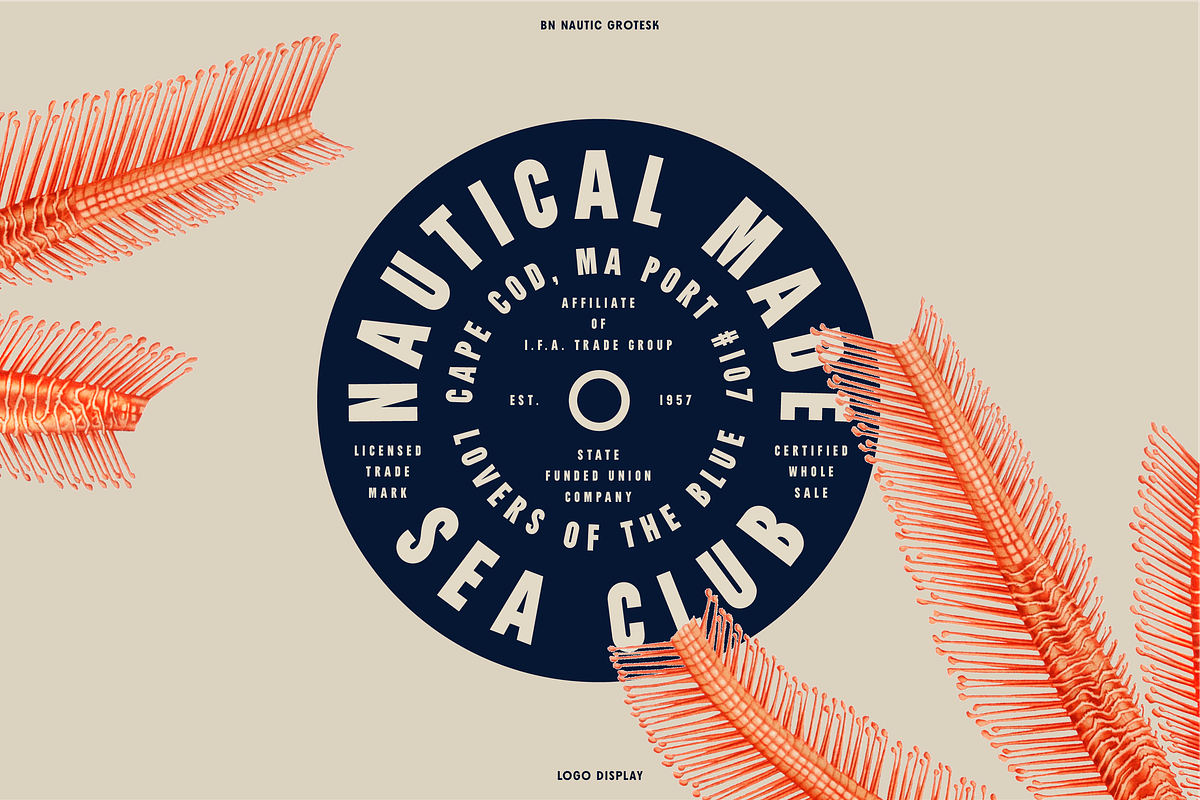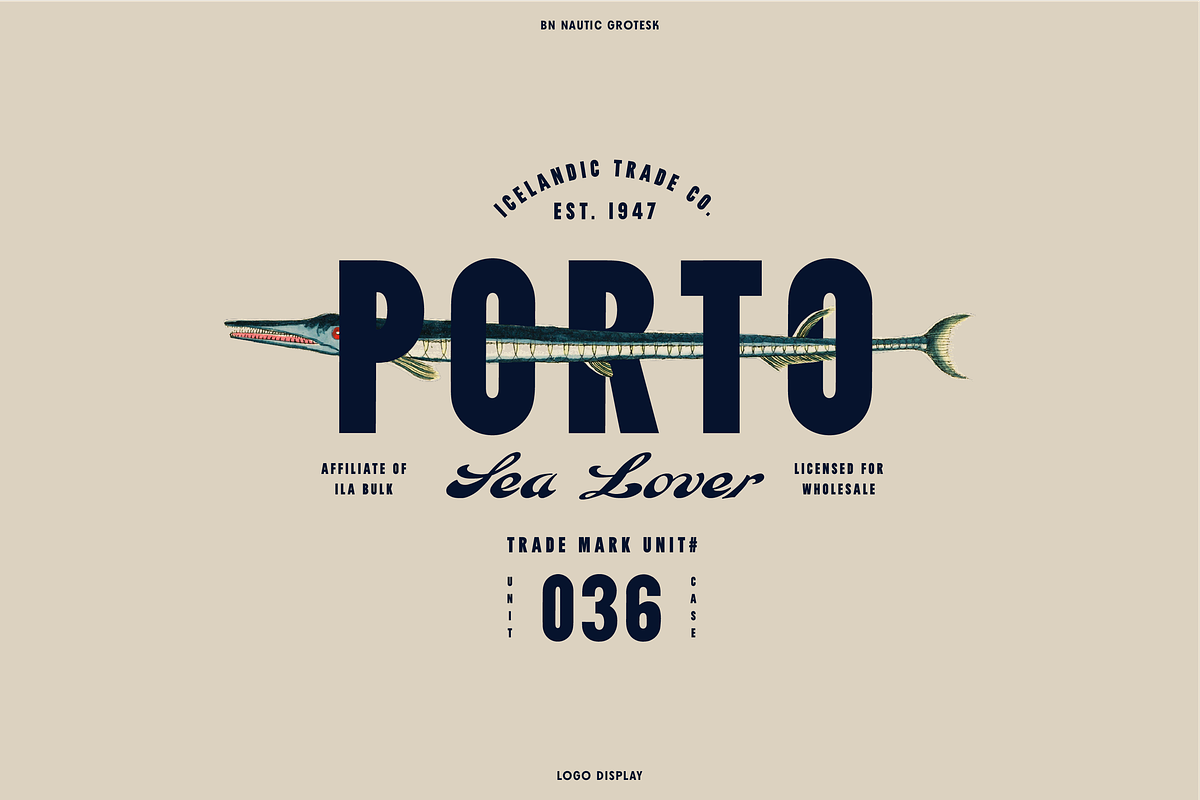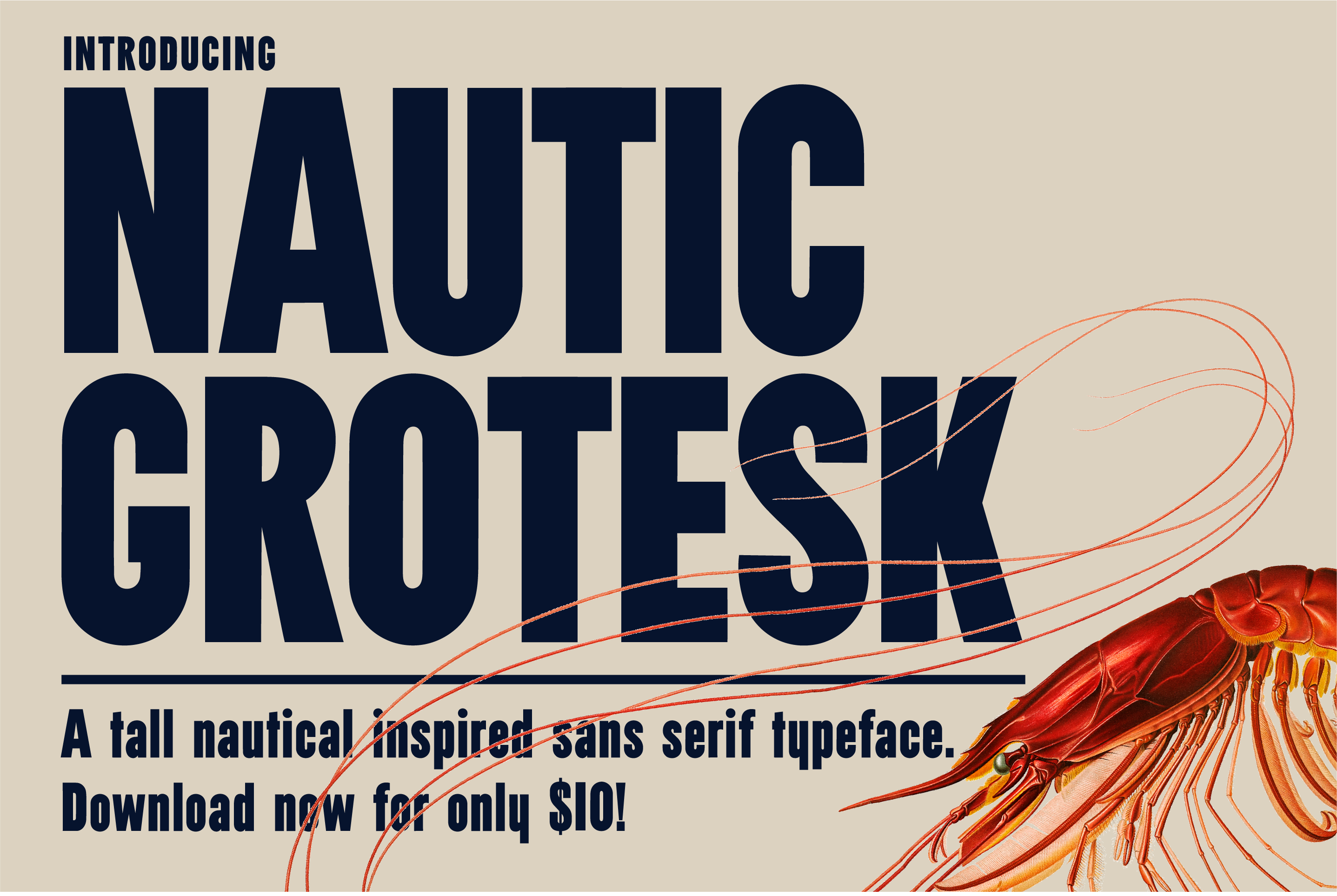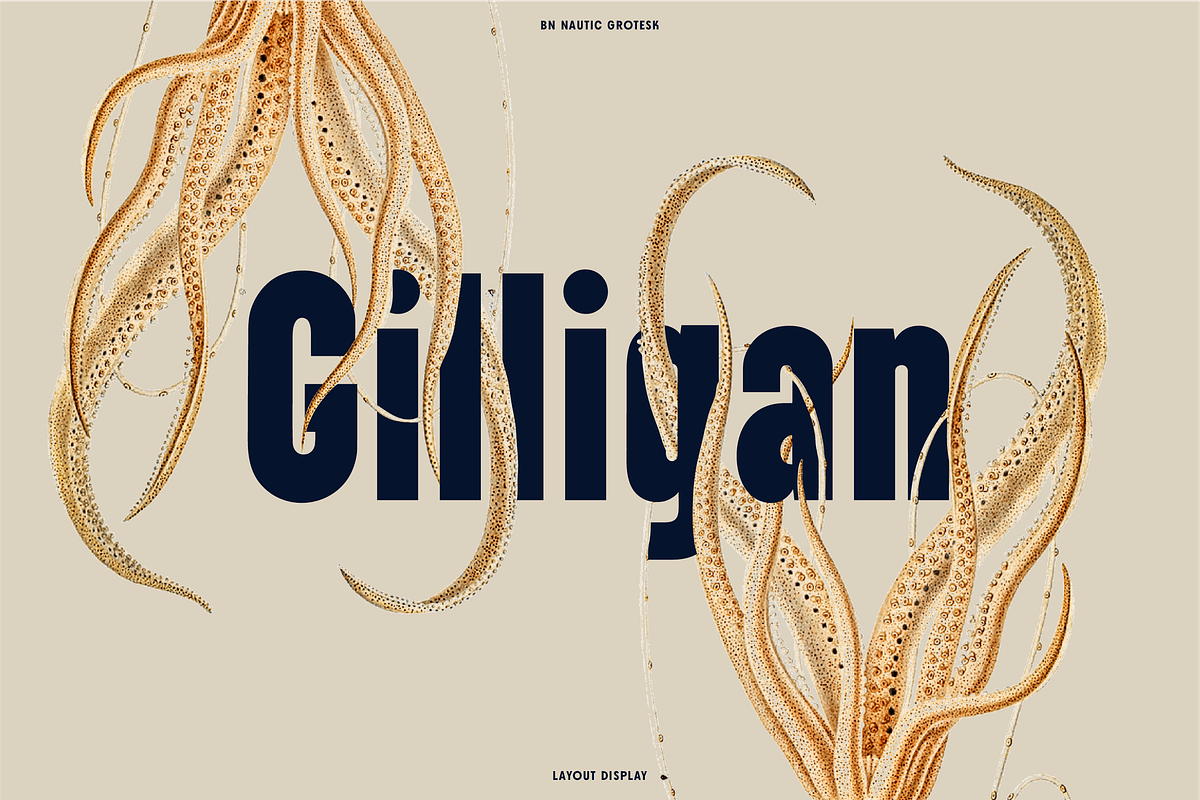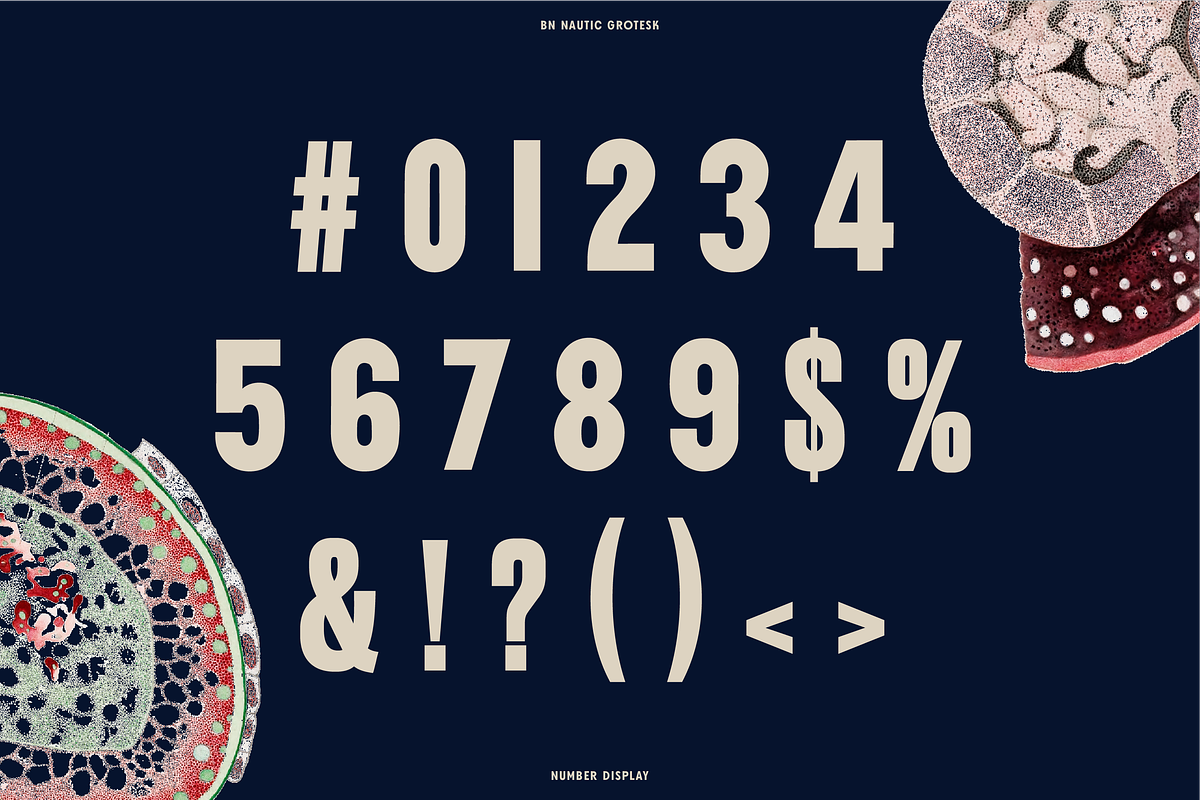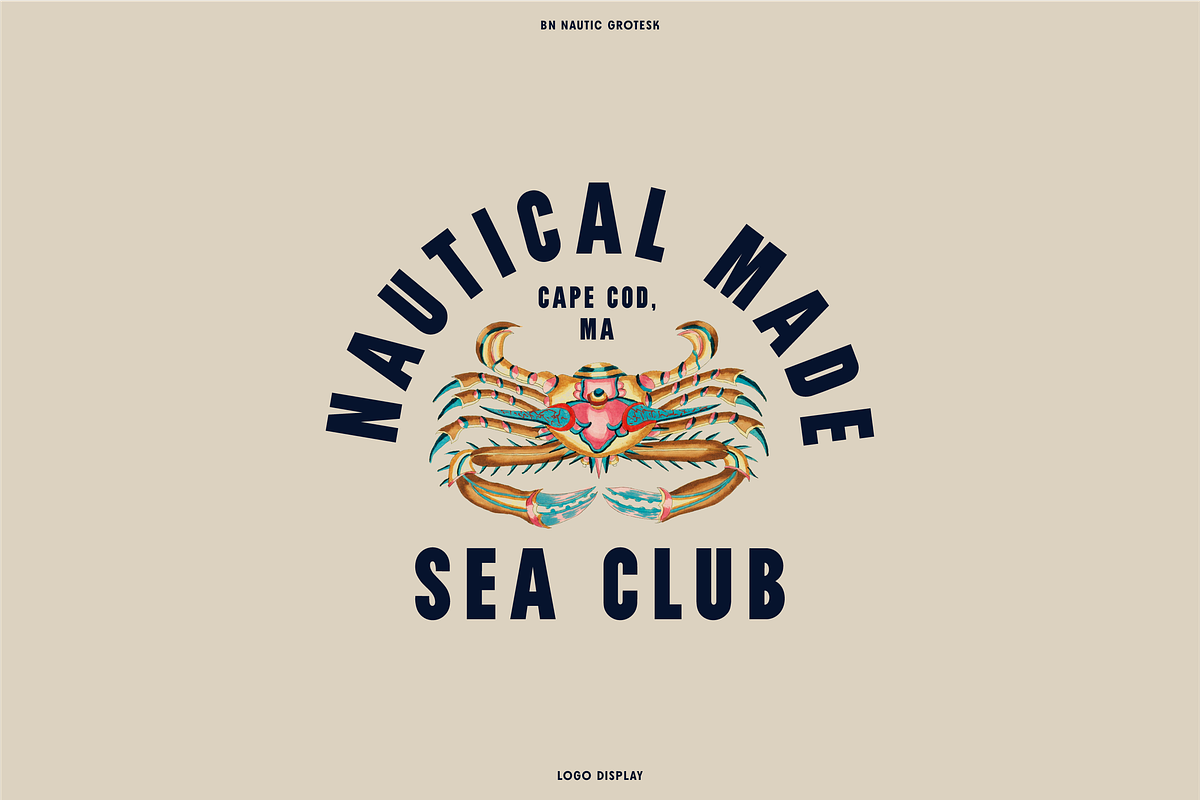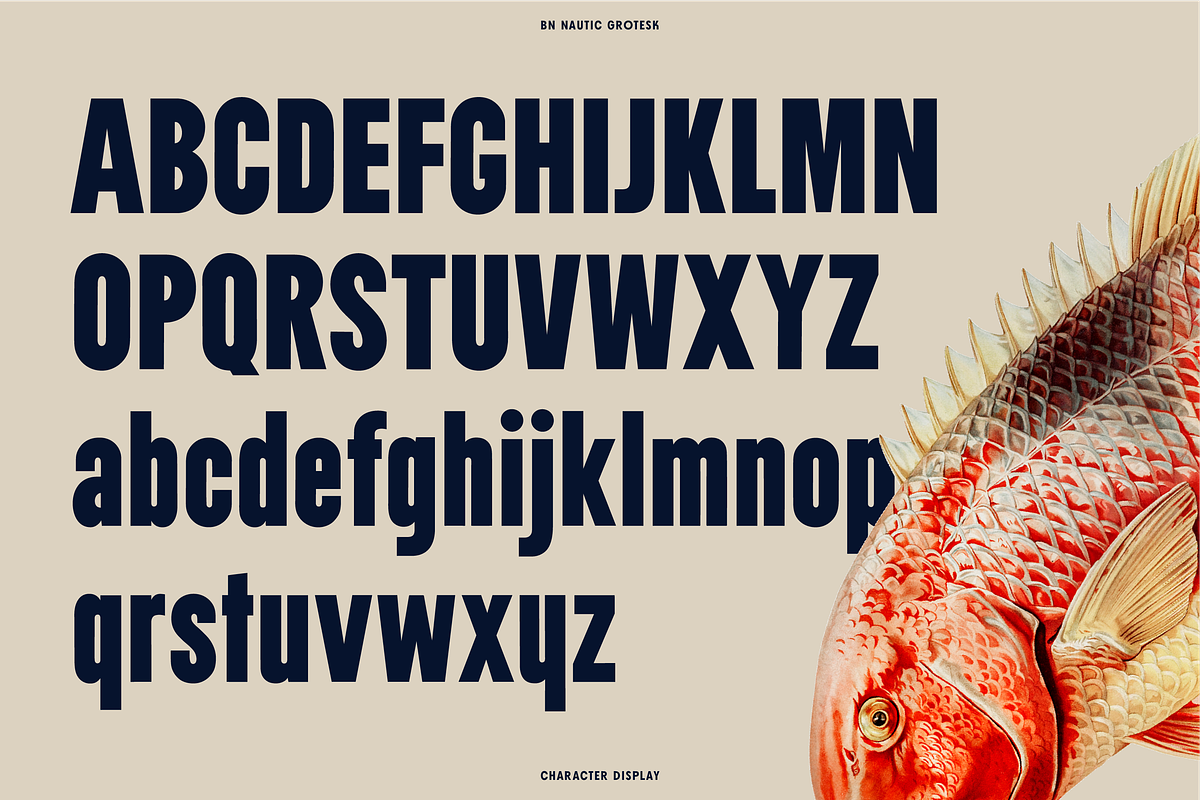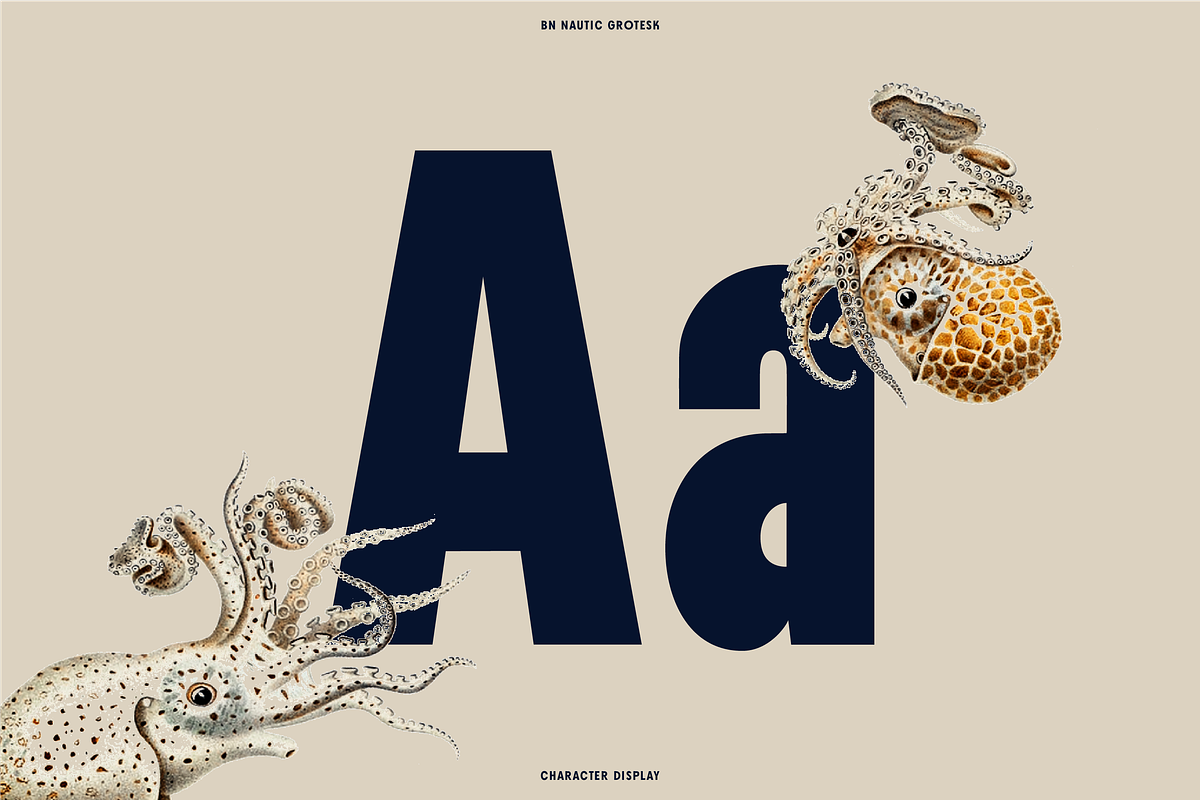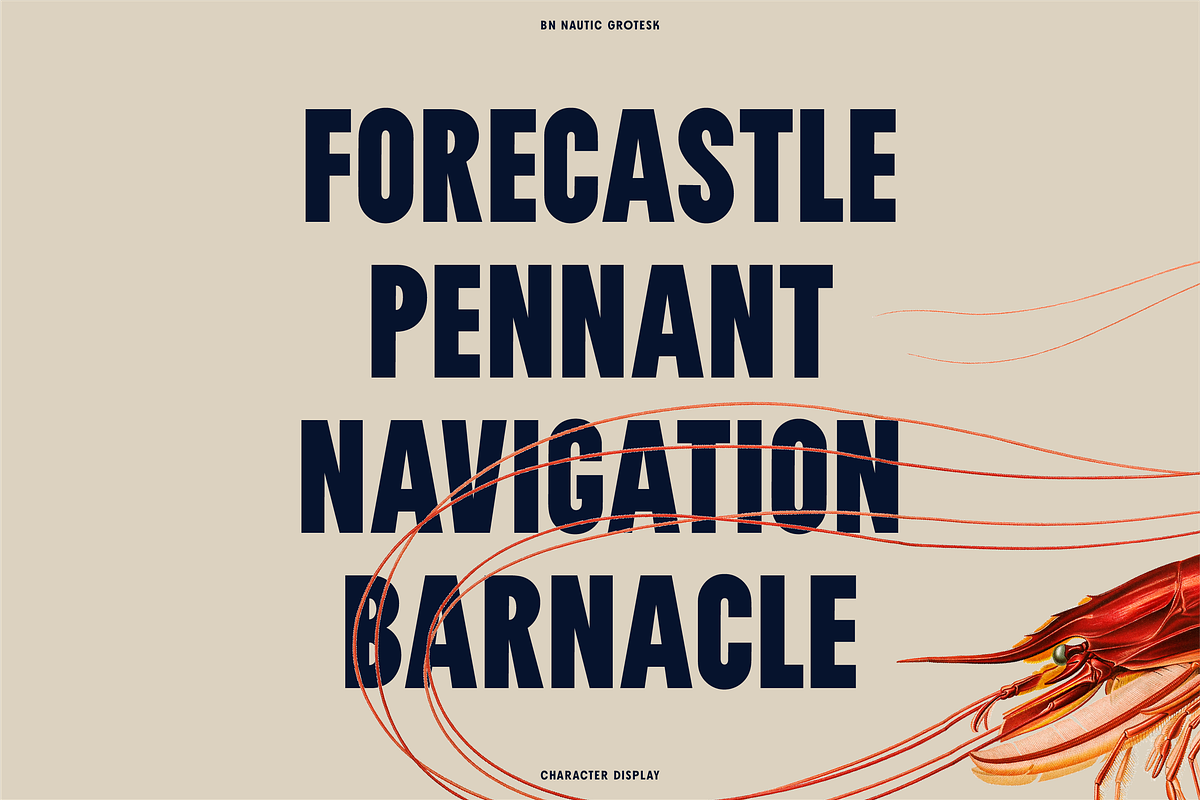
Nautic Grotesk - Modern Display Font
Introducing BN Nautic Grotesk, a bold nautical-inspired typeface.
Nautic Grotesk uses a geometric frame influenced by common lettering found in the boating and fishing industries. These letters are typically tall, bold and legible given that they must be able to fit in awkward places (like the curved side of a boat). This framework allows the letters to be pronounced and impactful creating the perfect modern display font!
The weight offered here is primarily a display typeface perfect for logos, layout and headline designs! (So make sure to give the type tester a try before purchasing)
I bought this font because it was picked by my client, and frankly it needs some fine tuning. The colon and semi-colon don't work correctly, they drop down like sub text. Also the brackets are not heavy enough to match the letters and neither are the exclamation point, the @ sign, equal sign, hyphen etc. The kerning after the letter "i" needs to be adjusted, there is not enough space. The designer(s) really need to go back in and finish this one up.